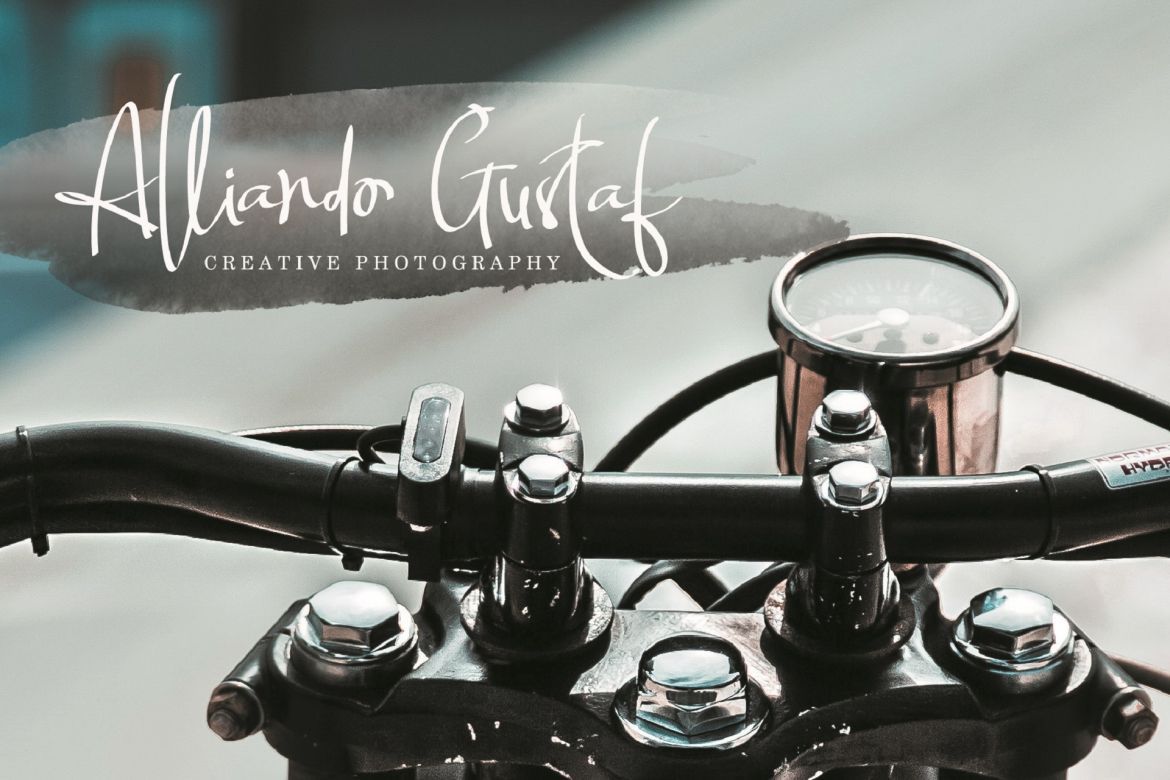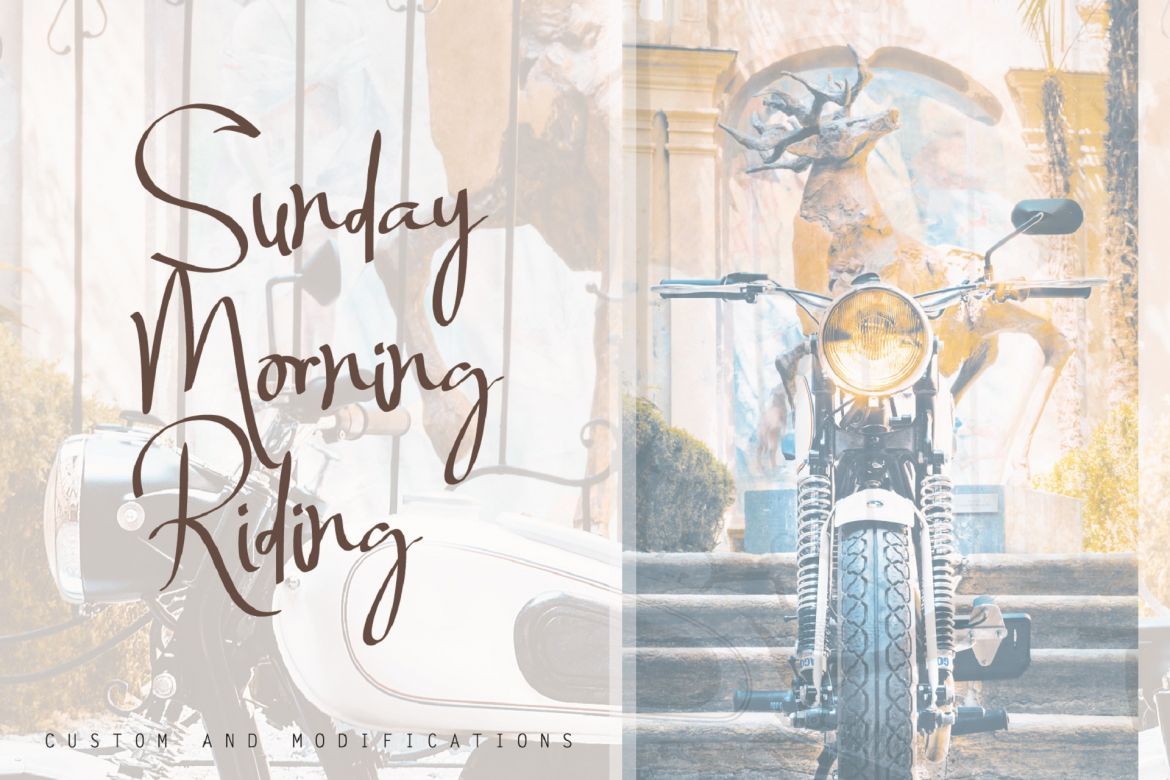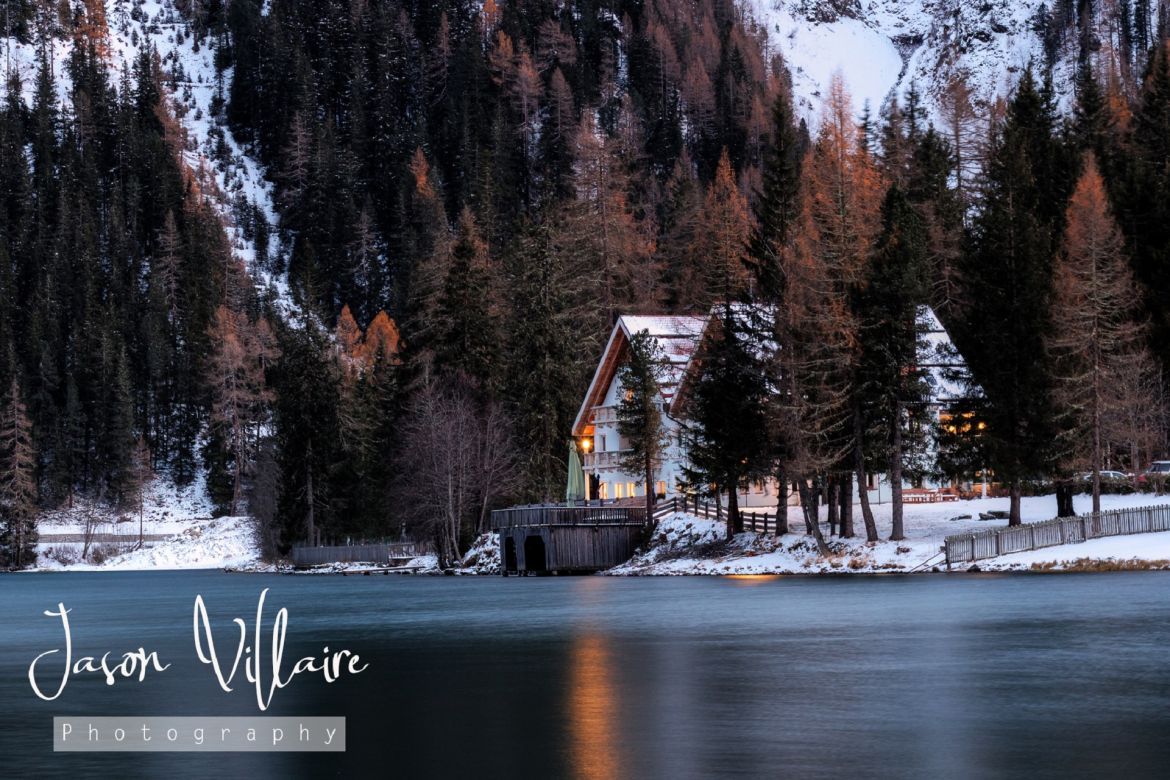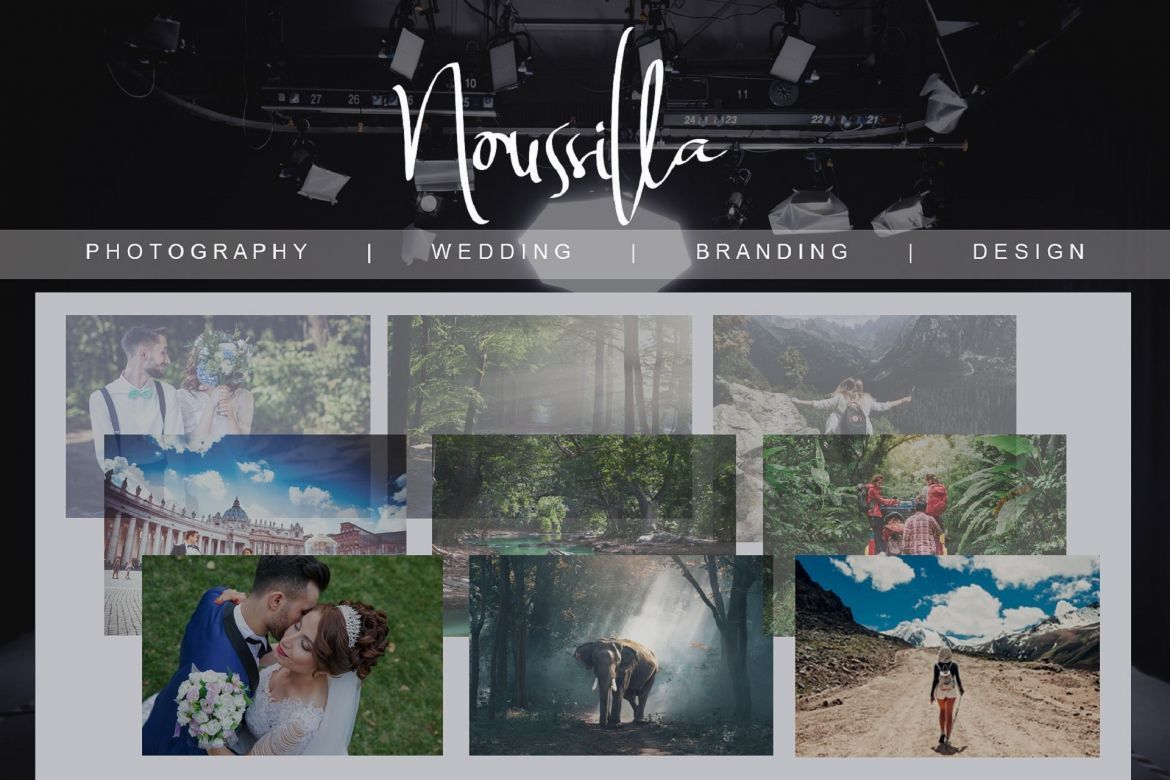
Billortte - Signature Font
Billortte is a font with simple and classy taste, comes with 2 Elegant Variations, opentype features such as ligatures, and free Slant Version . We keep this font looks classy, readable, elegant, stylish, catchy and absolutly easy to use.
Billortte Font is the great choice for watermark on photography, signature or signature logo design, album cover, business card, quotes, and many other design project.
• each font has: stylish handwritten style, special ligatures, multilingual support